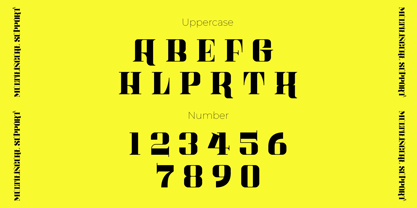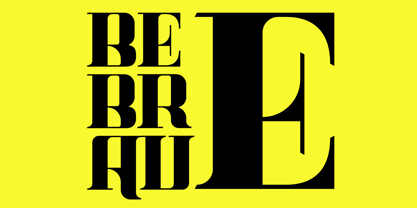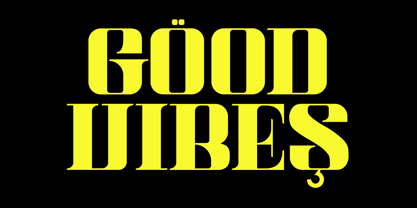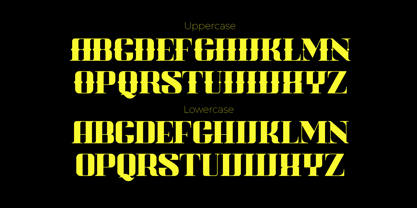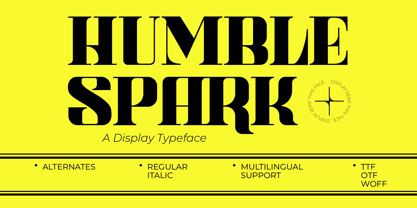
Humble Spark
Humble Spark – Elegant Serif Display Typeface for Modern Sophistication
Humble Spark is a refined serif display typeface designed to illuminate your creative projects with elegance and grace. Featuring crisp letterforms and subtle detailing, it masterfully blends classic charm with a contemporary spirit. Perfect for branding, editorial layouts, upscale packaging, and timeless visual identities, Humble Spark offers both impact and subtlety in every character.
Meticulously designed for clarity and visual appeal, Humble Spark elevates any composition with its poised and stylish appearance. Its adaptability across both print and digital platforms makes it an indispensable asset for designers aiming to convey sophistication with a modern twist.
Key Features
• Elegant serif display typeface with distinctive personality
• Multiple style variations for creative versatility
• Ideal for branding, editorial, and luxury design needs
• Comprehensive multi-language support
• Crafted for timeless, high-impact typography
Humble Spark combines refined beauty and confident expression, providing a typeface that speaks with understated power and lasting impression.